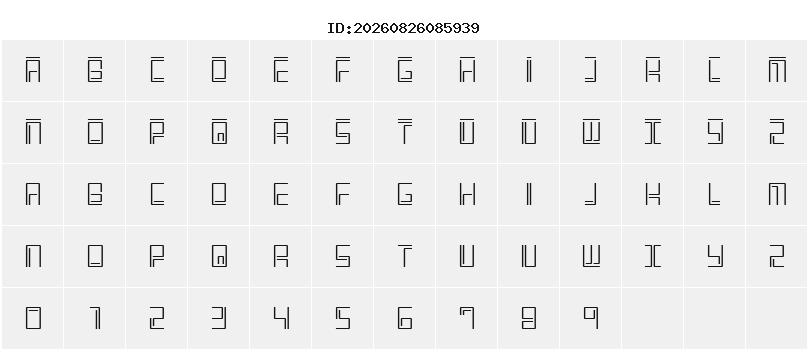
Welcome2M Preview
• Font Name: Welcome2M
• Full Font Name: Welcome2M
• PostScript Name: Welcome2M
About Welcome2M.ttf
Welcome2M.ttf is a modern, elegant sans-serif font designed for ultimate readability and visual harmony. Perfect for branding, headlines, web design, and print materials.